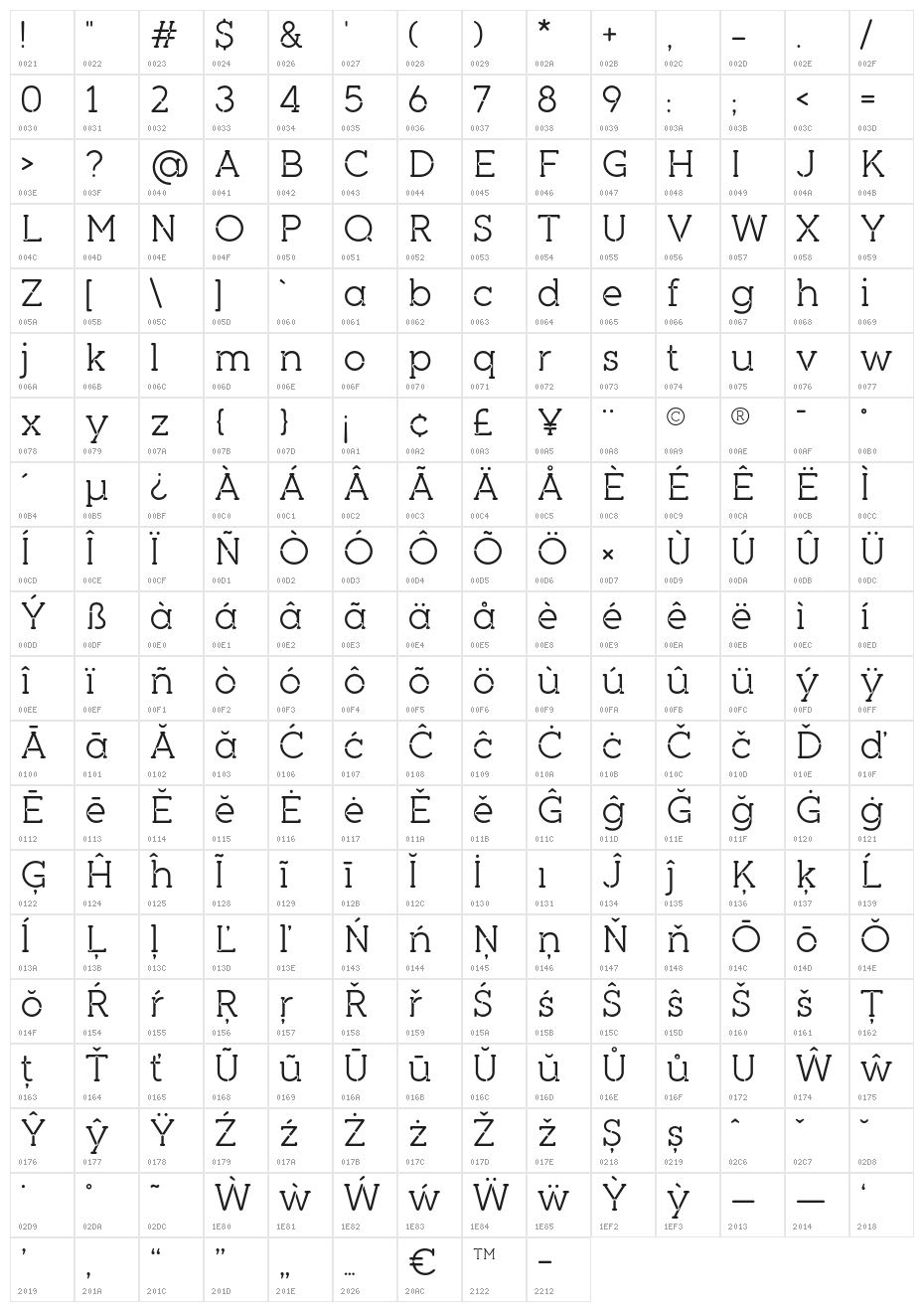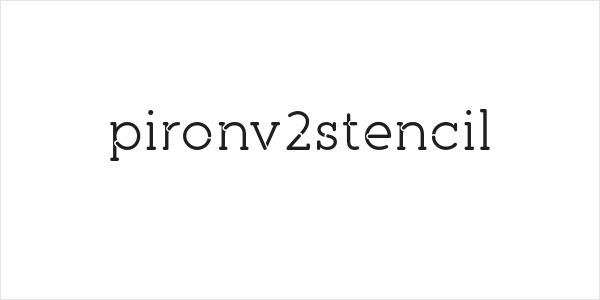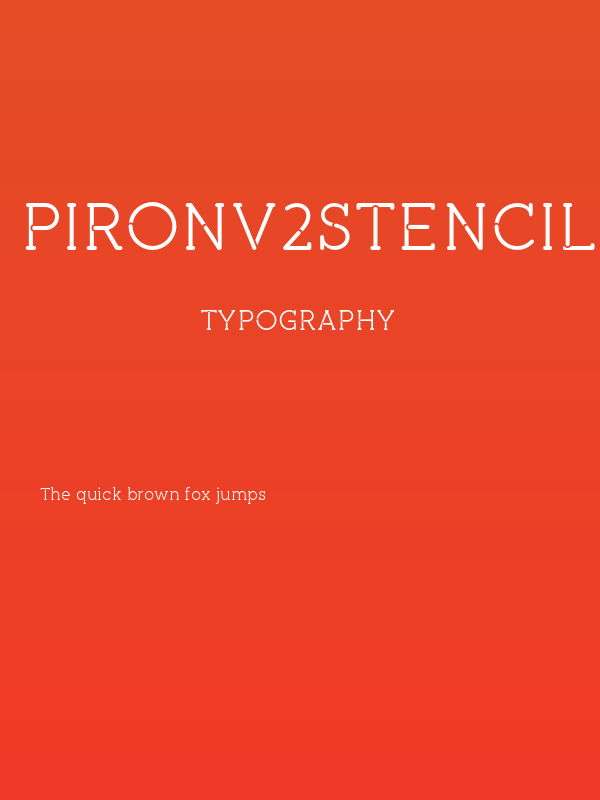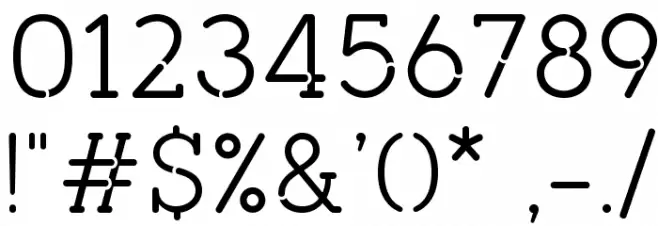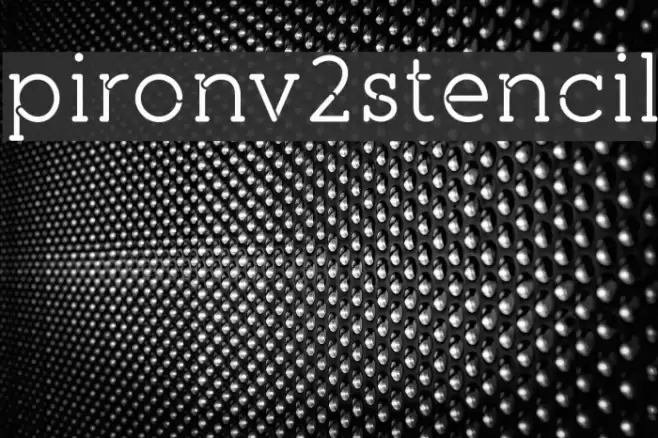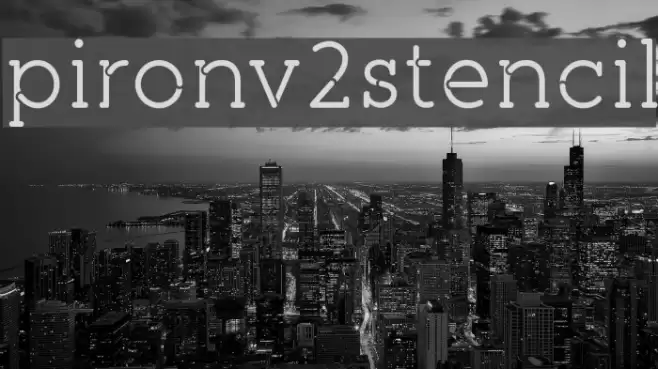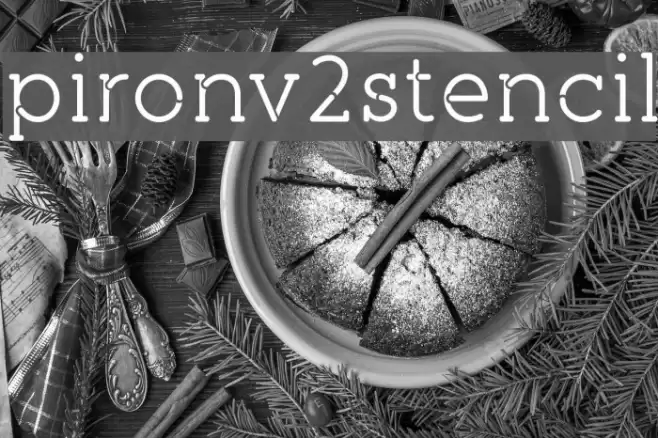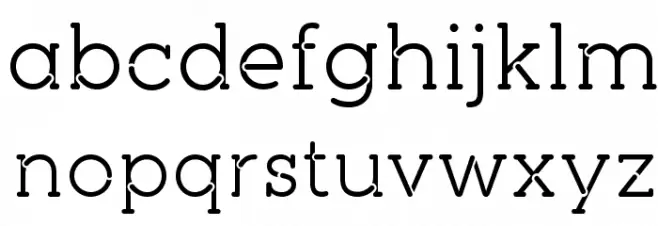
pironv2stencil Font
pironv2stencil Description
This font features a modern stencil design with clean, geometric lines and distinct breaks in the strokes, giving it a unique and industrial feel. The uppercase and lowercase letters maintain a consistent style, with rounded edges and uniform stroke widths. The numbers and special characters follow the same design principles, ensuring a cohesive look across all glyphs. The font's structure is both functional and decorative, making it suitable for a variety of design applications. Its readability is enhanced by the clear separation of elements within each character, while the overall aesthetic remains bold and impactful.
| Proposed Projects | Ideal for branding, signage, posters, and any project requiring a modern, industrial look. |